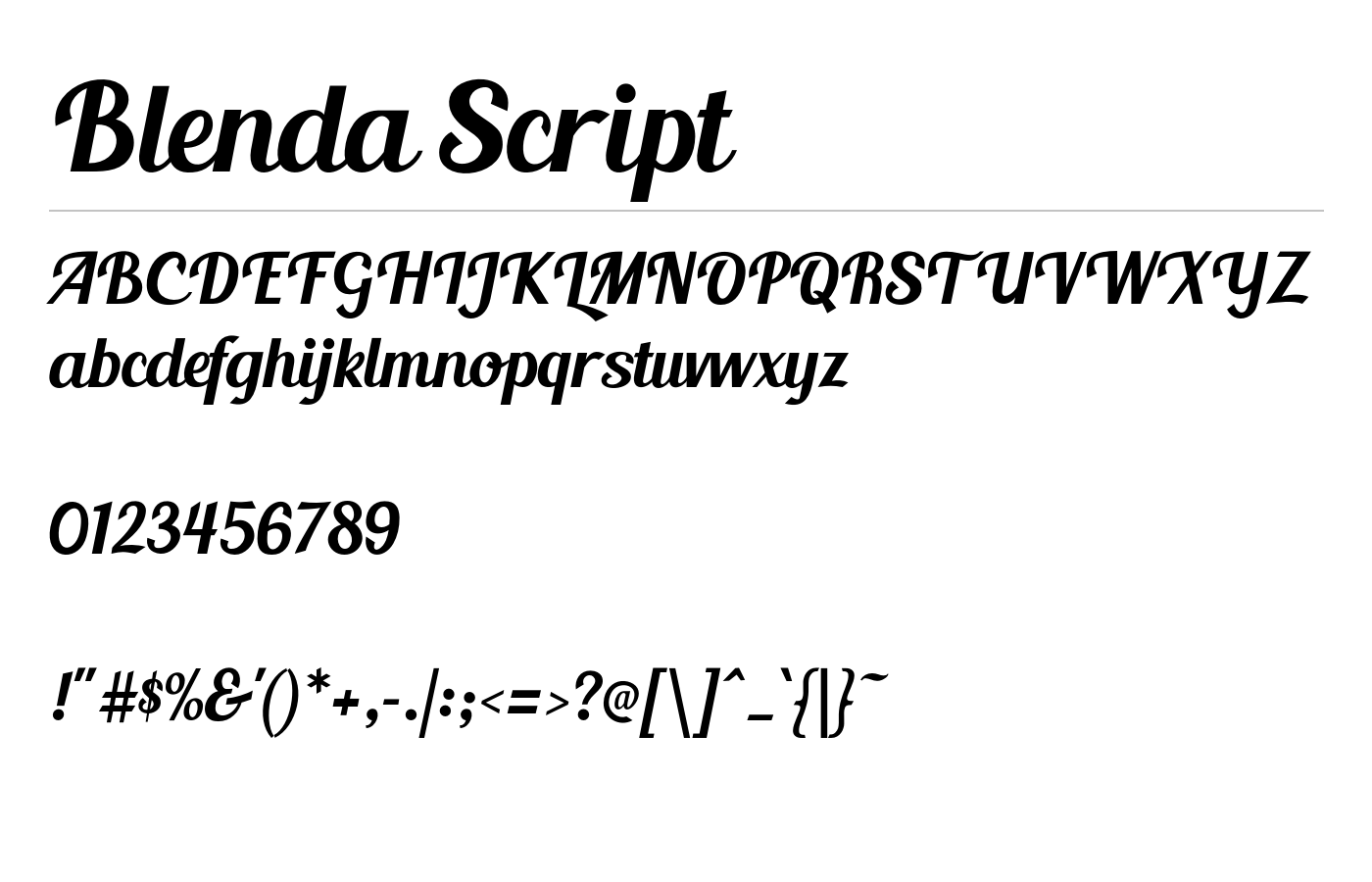
Blenda Script is a stylish, italicized script font with a modern touch, featuring smooth, flowing letterforms and moderate contrast in stroke weight. Its elegant, slightly condensed characters and clear readability make it ideal for branding, headlines, and invitations where a sophisticated yet approachable look is desired. This font blends classic script charm with contemporary design, perfect for fashion, editorial, and luxury projects.
Blenda Script Font
About Blenda Script Font
| Font family | Blenda Script Font |
| Designer | Seniors Studio |